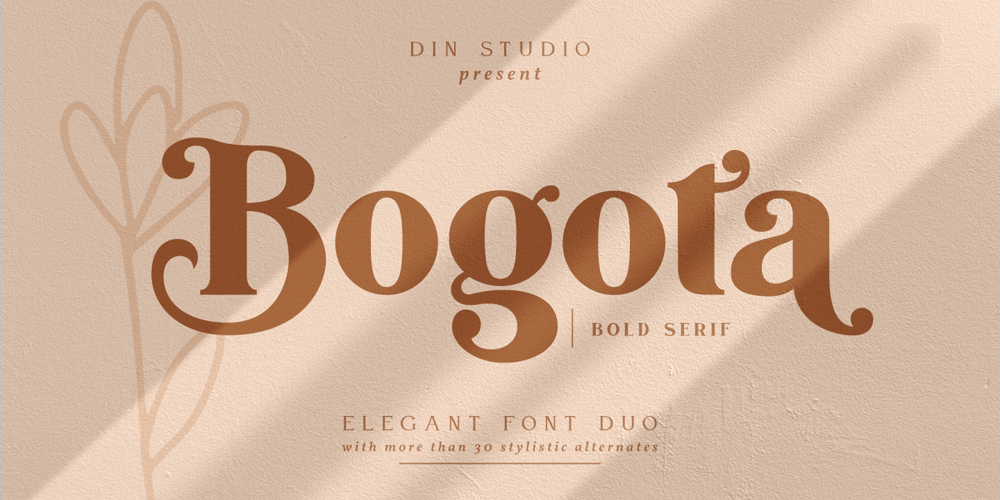
Bogota
Bogota font
Bogota Font Family was designed by Donis Miftahudin and published by Din Studio. Bogota contains 2 styles and family package options. Bogota is a modern and clean display (Serif) font create from our talented font designer. The design of Bogota will make your design more beautiful and inspiring. This font will suitable for any project, like branding, print template, logo and etc. The font also available in a thin version.Features: Accents (Multilingual characters) Alternates PUA encoded Numerals and Punctuation (OpenType Standard)